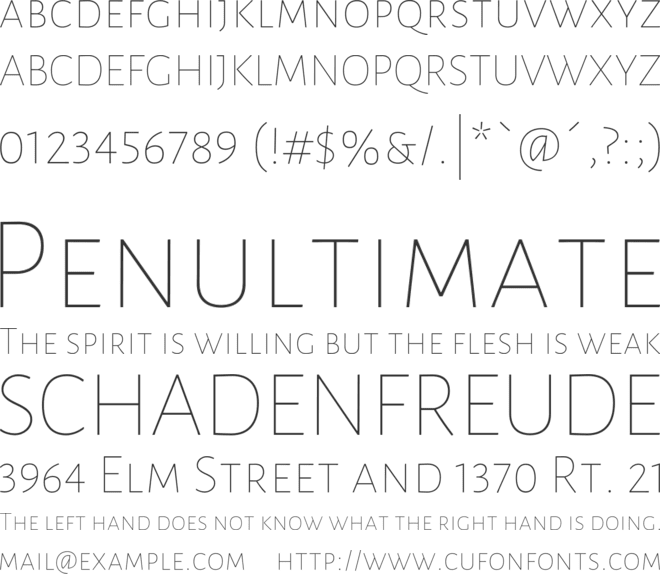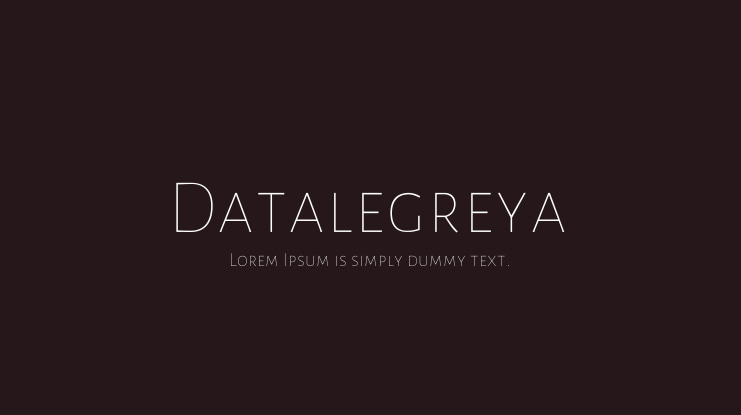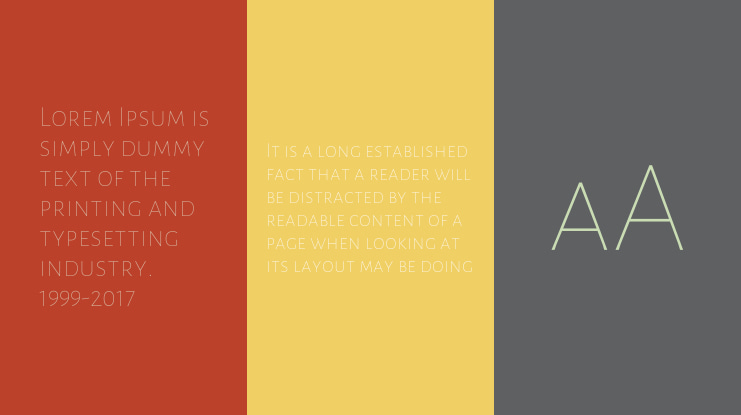
Datalegreya Font Family
Datalegreya is a typeface which can interweave data curves with text. It is designed by Figs, and based on Alegreya Sans. http://figs-lab.com/en/datalegreya